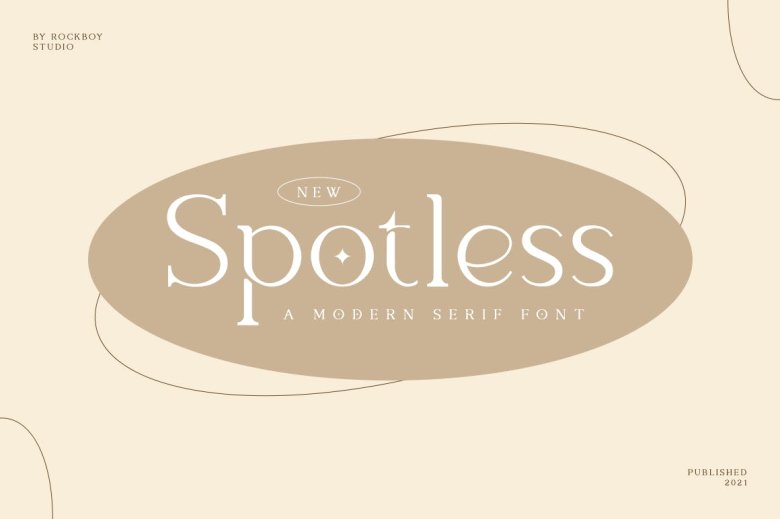
Spotless Font
Spotless is considered a sophisticated clean serif font. As a real masterpiece with a view to becoming everyone’s favorite, this font is ready to elevate each of your visions to the peak!
Spotless Serif Font